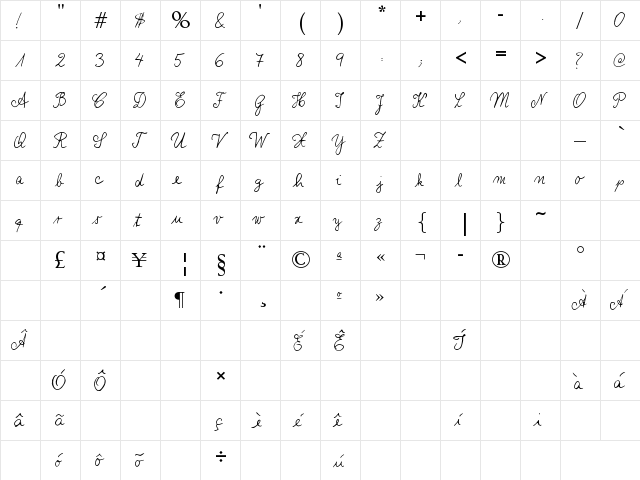
Voigt Fine Script Regular
Design Context for Voigt Fine Script Typeface
Voigt Fine Script flows with the natural rhythm of handwritten lettering, making it ideal for designs that call for warmth and personal expression.
Font Pairing: Combine Voigt Fine Script with a simple geometric sans for maximum contrast — the tension between flowing curves and clean structure is a classic typographic pairing.
Pro Tip: Use Voigt Fine Script for short runs of text — names, titles, or taglines. Extended body copy in script faces tires the eye quickly.